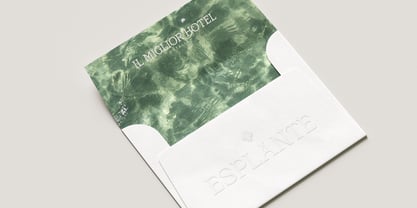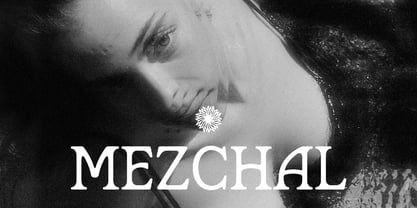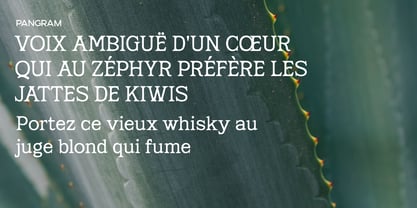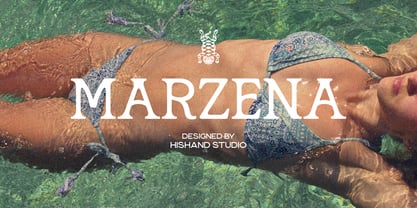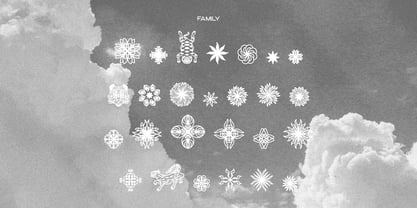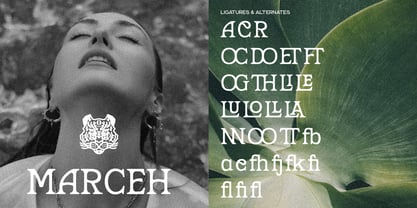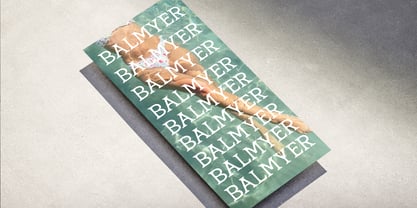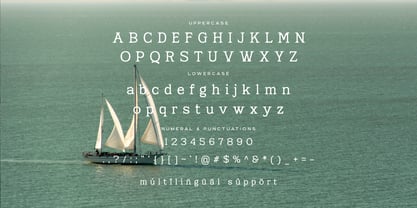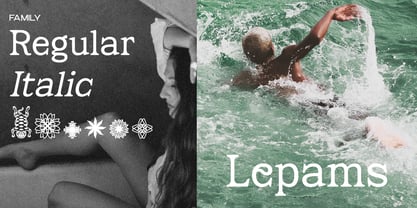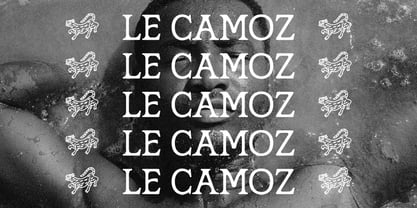
Marzena
Marzena is a display serif with bold character and vintage charm. Sturdy, condensed letterforms with high contrast and decorative flourishes give it a handcrafted feel, perfect for labels, signage, and branding that wants a retro, artisanal edge. Think spirits packaging, western inspired logos, and statement headlines with personality.
This font comes with 26 aesthetic icons, hand drawn to match the typeface's decorative spirit. From ornamental flourishes to line art symbols, these icons add texture to labels, invitations, and branding projects, extending the vintage story beyond the letterforms themselves.
Marzena suits craft beverage branding, vintage inspired packaging, and lifestyle projects looking for warmth and character. With its blend of boldness and decorative detail, this typeface brings old world charm to modern design work. Complete with :
- ligatures
- alternates
- regular
- Italic
- icon
- kerning
- multilingual support